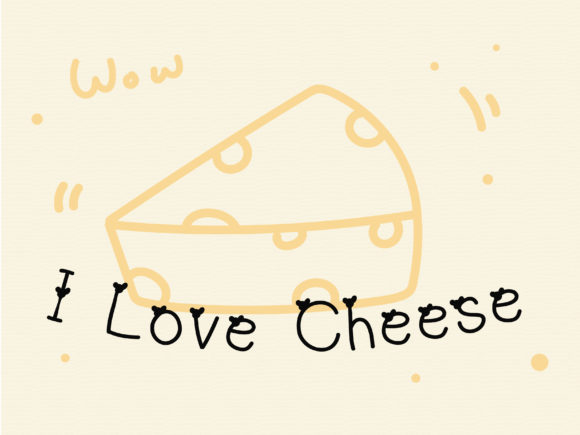
Missy Mouse Font
db-ku.com - Script & Handwritten -- Missy Mouse is a cute and friendly handwritten font. Add this romantic looking font to each of your love letters, wedding invitations or favorite design ideas, and you will be astounded by the outcome.